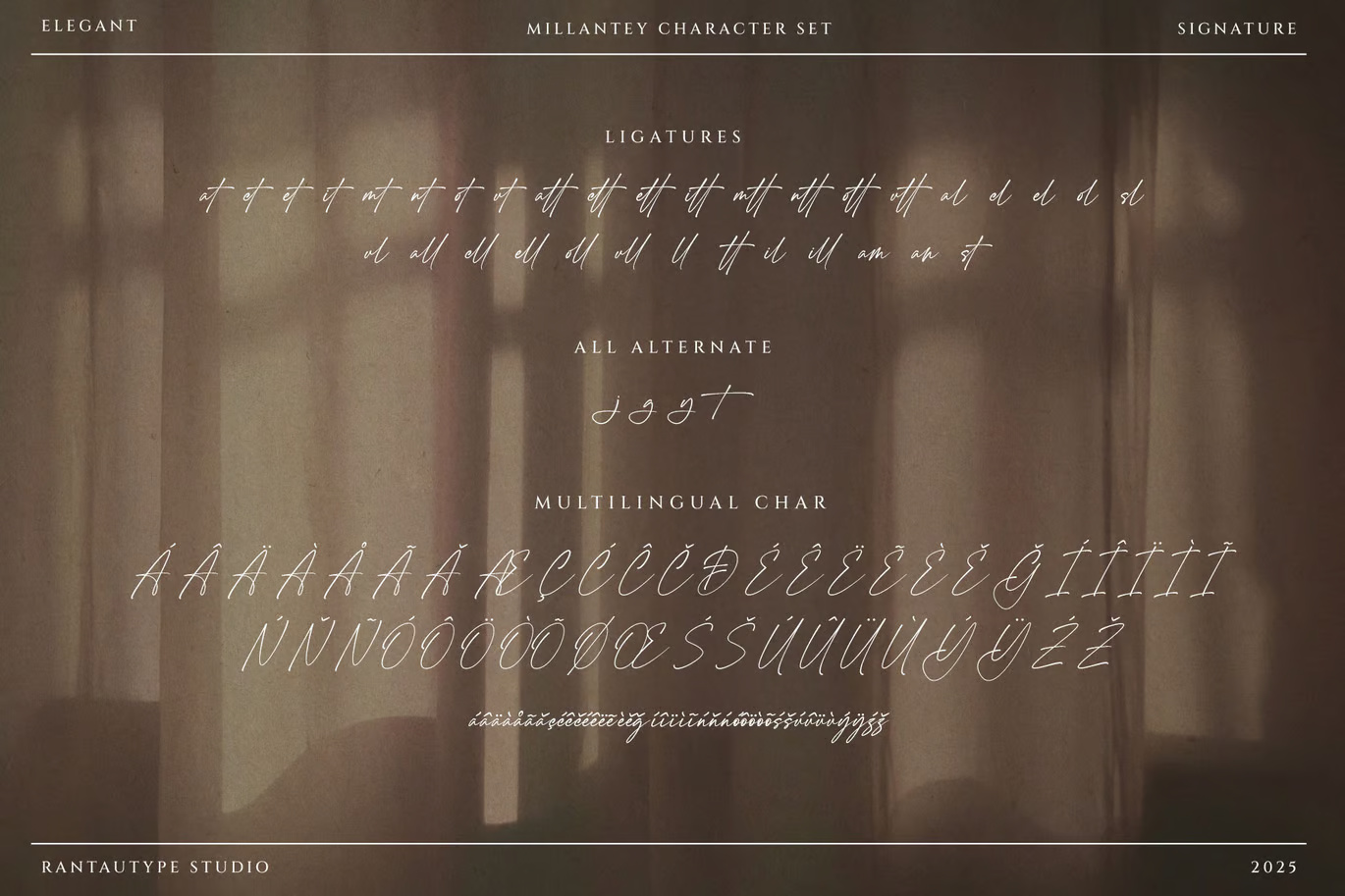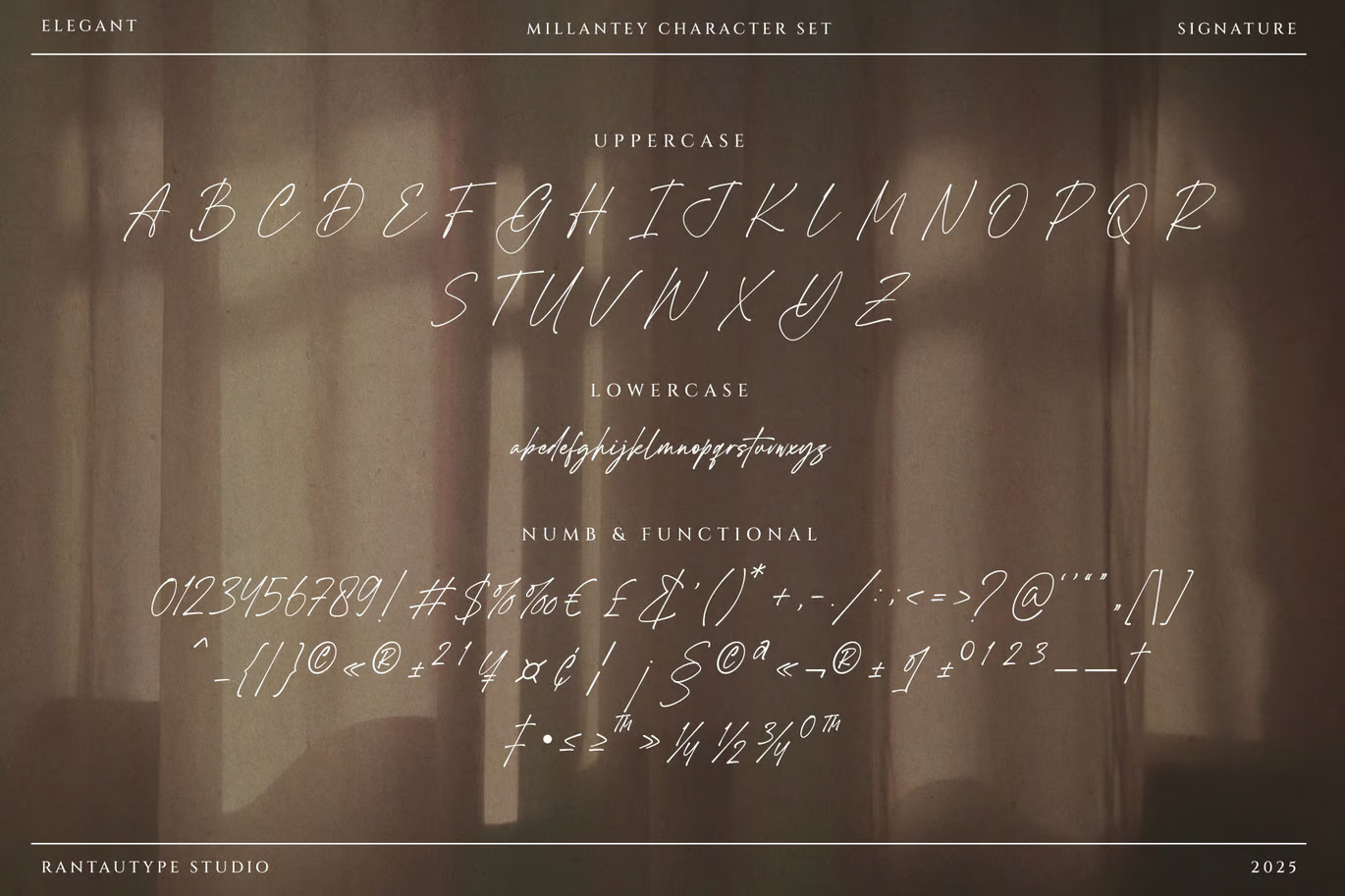
Millantey is an elegant script font that embraces grace and femininity. It comes with stylish characters to make your design projects stand out.This font is a professional choice for any creative endeavor, bringing elegance, modernity, and chic style to various designs, including logotypes, titles, covers, branding, invitations, wedding designs, displays, magazines, social media posts, advertisements, printed quotes, product packaging, corporate branding, product designs, labels, photography, watermarks, special events, and any other project that requires a handwritten touch.
Millantey Elegant Script Font